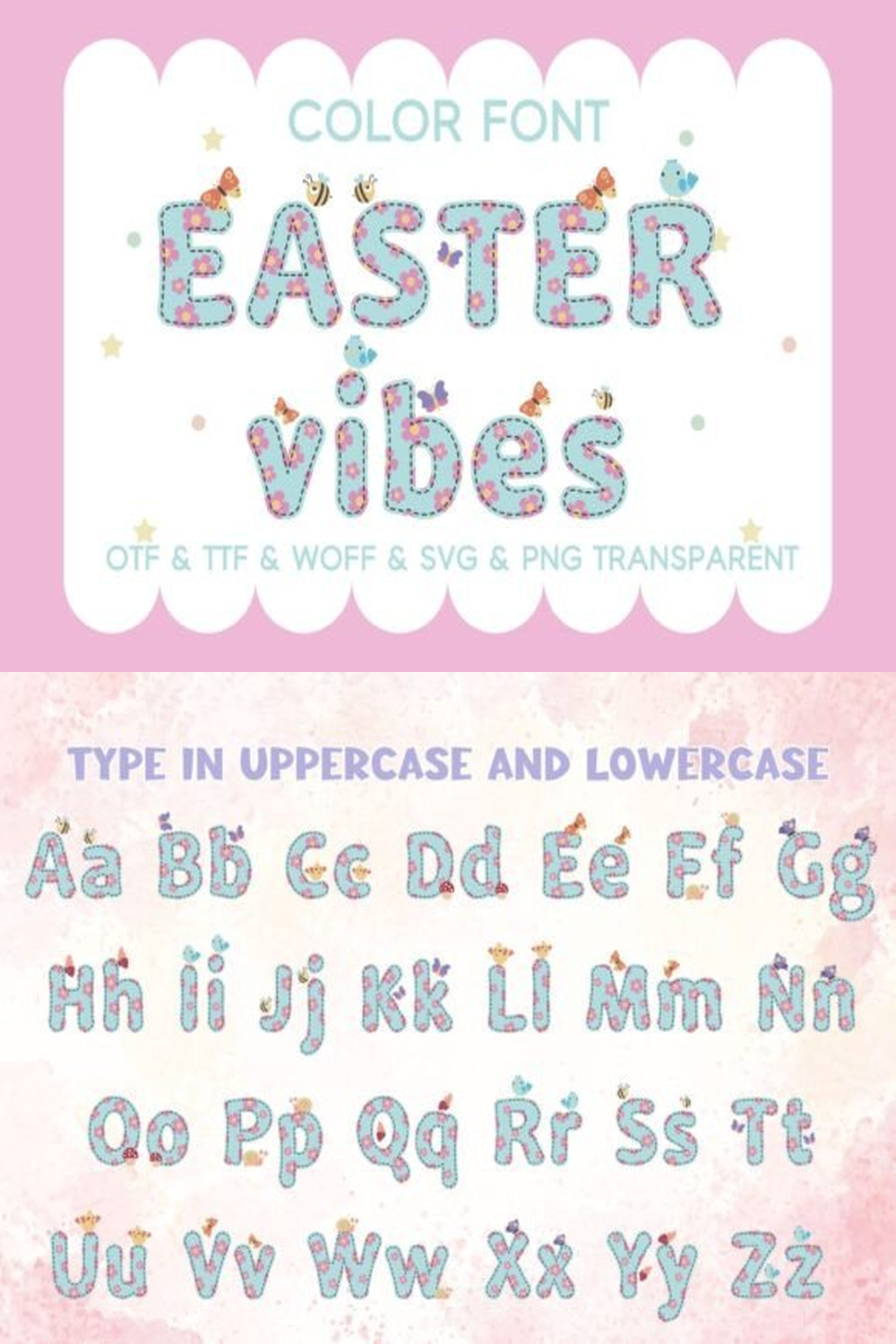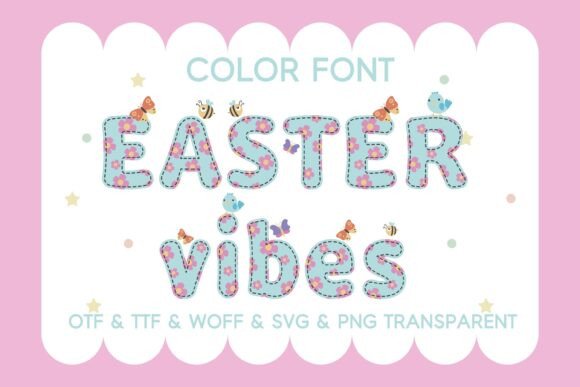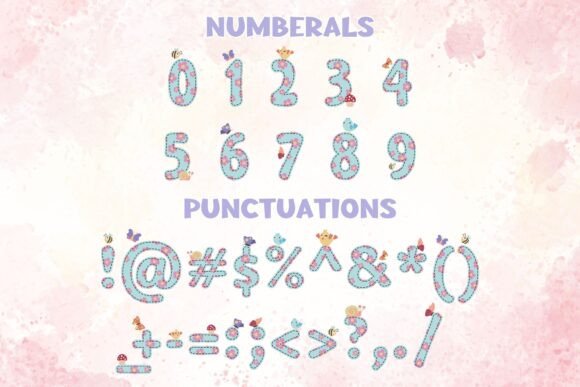
Easter Vibes Font
About the Easter Vibes Font
Meet Easter Vibes Font, a stunning font that brings a touch of elegance and professionalism to any design. Introducing “Easter Vibes” will look fantastic on all your project designs, including t-shirt designs, mug designs, digital designs, crafts, cards, and any projects!